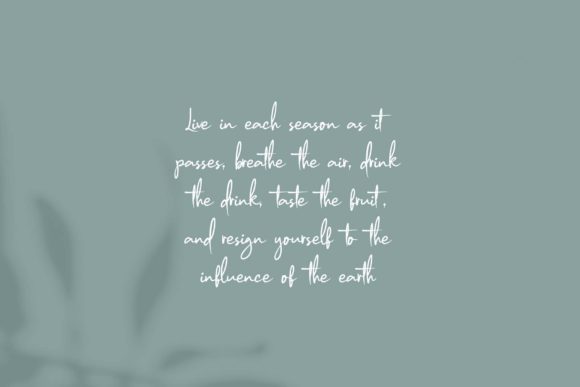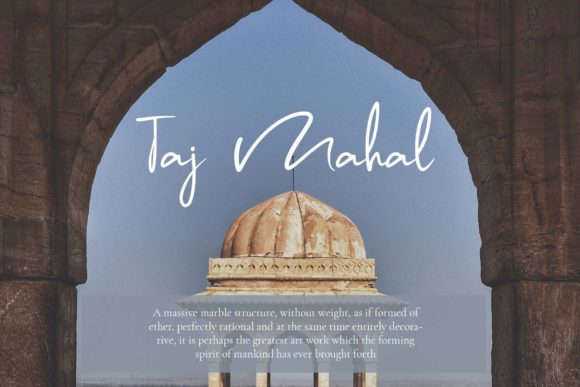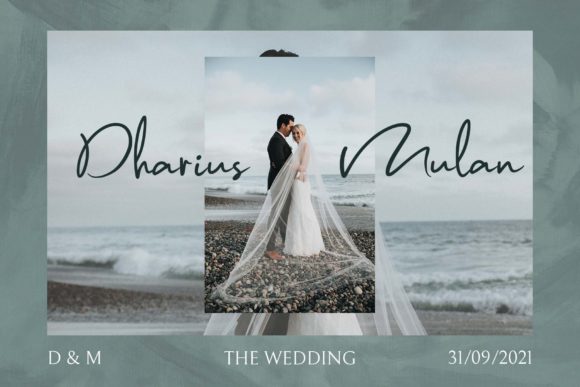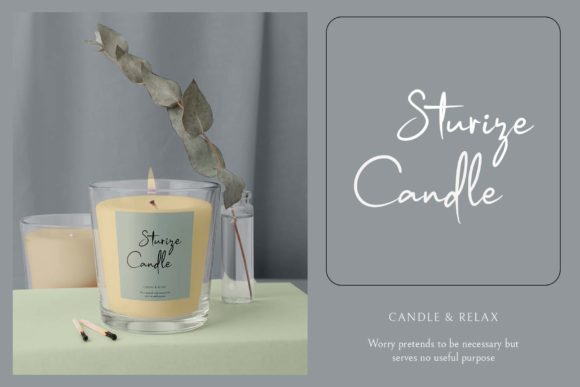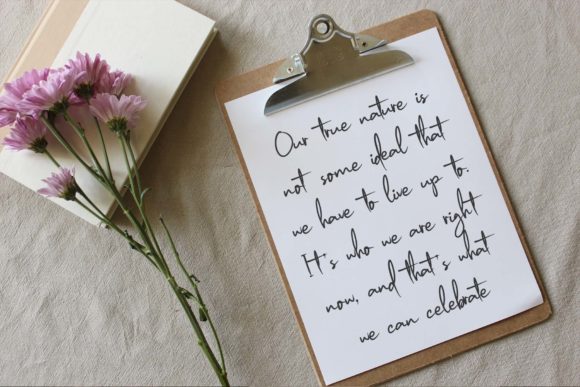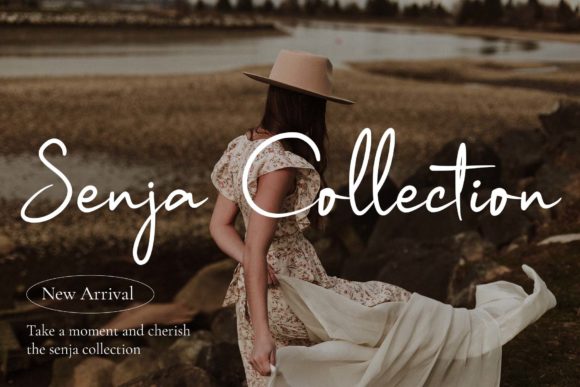
Introduction to Modien Font
Modien is a beautiful and laid-back handwritten font with a unique feel and a stunning impact.
It will add a luxury spark to any design project that you wish to create .
Modien Font offers exceptional quality and versatility, making it a valuable addition to your design toolkit. Whether you’re creating for personal projects or commercial use, Modien Font delivers professional results.